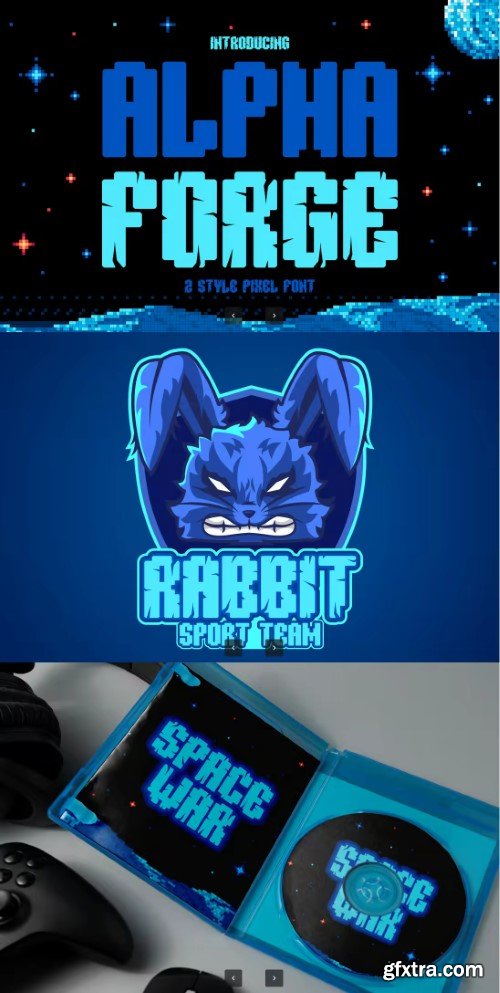
Alpha Forge Pixel Font
Step into the world of retro futurism with Alpha Forge Pixel Font, a high impact display typeface crafted for digital and sci fi inspired designs. This font features a bold pixel construction with two unique styles—clean block and fractured glitch—perfectly suited for futuristic branding, gaming interfaces, digital packaging, and bold tech logos. The uppercase letters are crafted with pixel precision, while the alternate style adds rugged edges and cyberpunk inspired cuts. Each glyph gives off the nostalgic vibe of vintage arcades, while still aligning with today’s demand for striking, digital forward visuals.